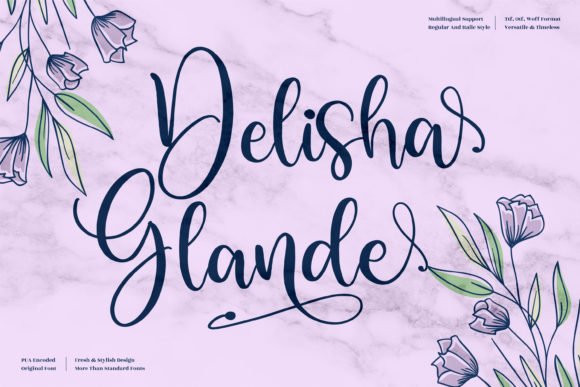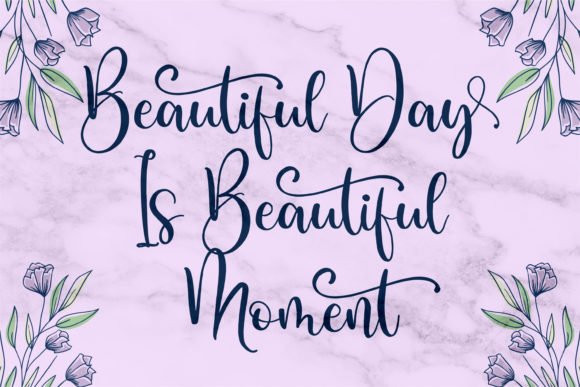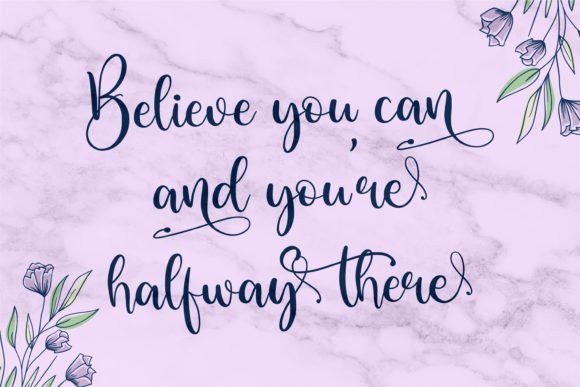
Delisha Glande Font
Delisha Glande is a dazzling script font. This font is neatly crafted and highly detailed. It is also PUA encoded which means you can access all glyphs and swashes with ease!